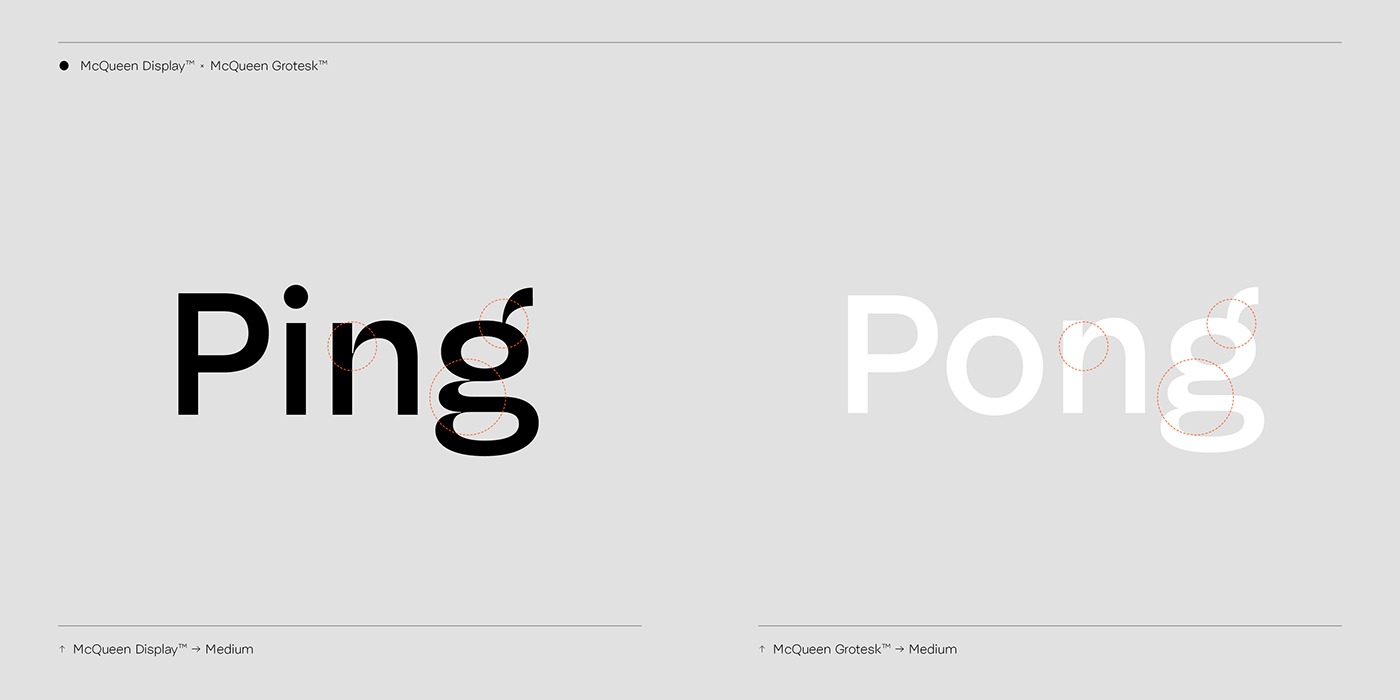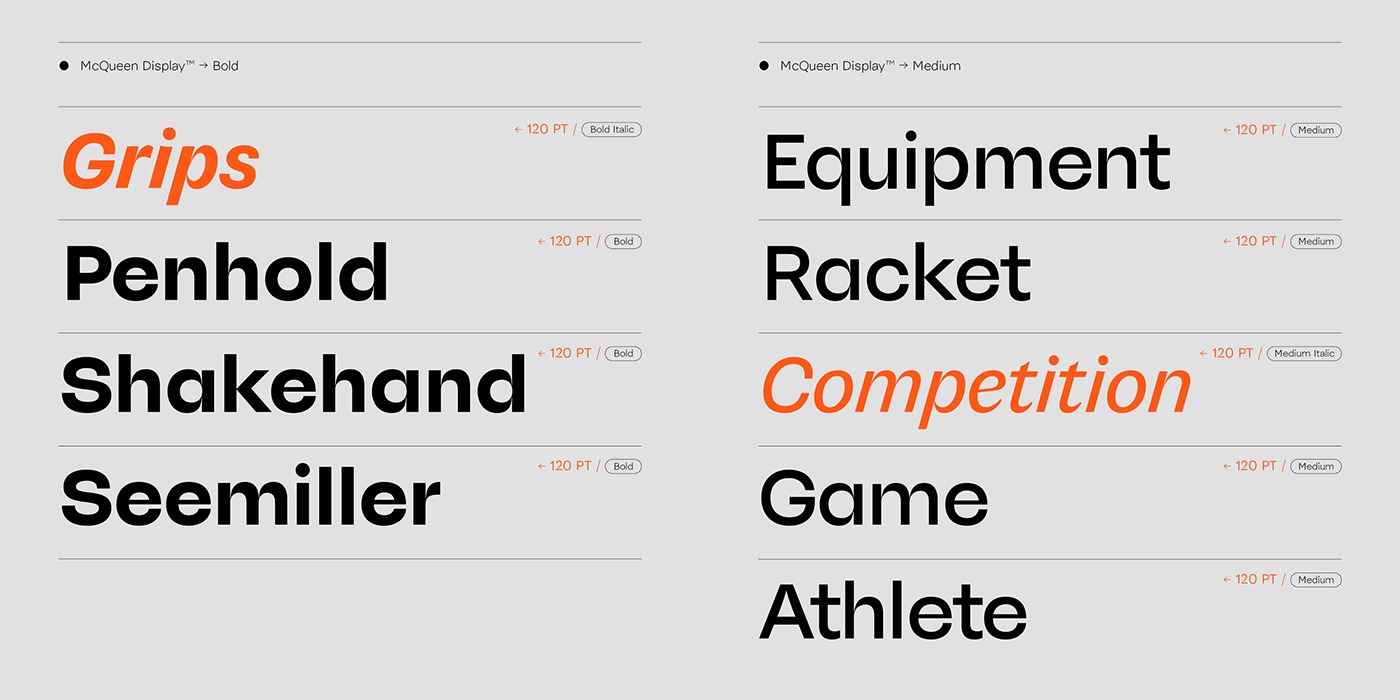
McQueen Font Family
McQueen Sans Serif Font
This Font designed by Fontwerk is an unique modern elegant sans serif typeface with two faces. The display self is a contentious eccentric who lives determinedly and only according to his own laws. The grotesque self is an ambitious individualist who confidently tears down conventions. McQueen is Swiss typography off the beaten grids. Through the veins of the McQueen brothers flows the blood of three designers. Loris Oliver – who came up with the idea for the font – is a Swiss designer with an enviable talent for creating trends. He knows the ‘Swiss Style’ all too well but the search for his own appeals to him much more. Noheul Lee also lives in Switzerland but hails originally from Korea and brings with her a quiet yet precise tone to the typeface as befitting with traditional Korean culture. Katja Schimmel from Germany completes the trio and adds meticulous font engineering to the typographical mix.